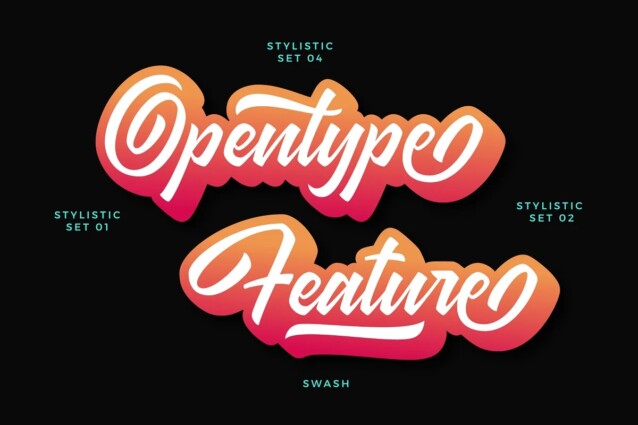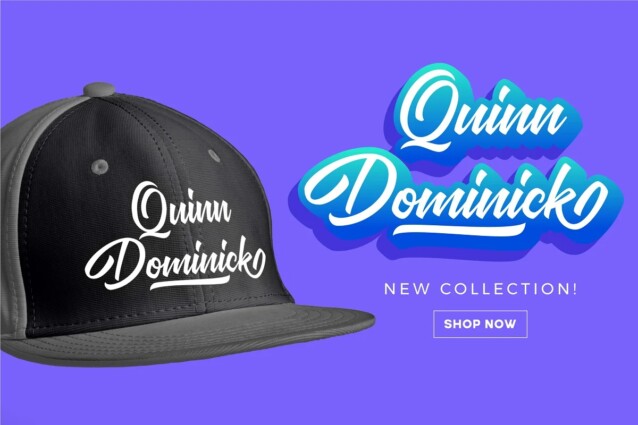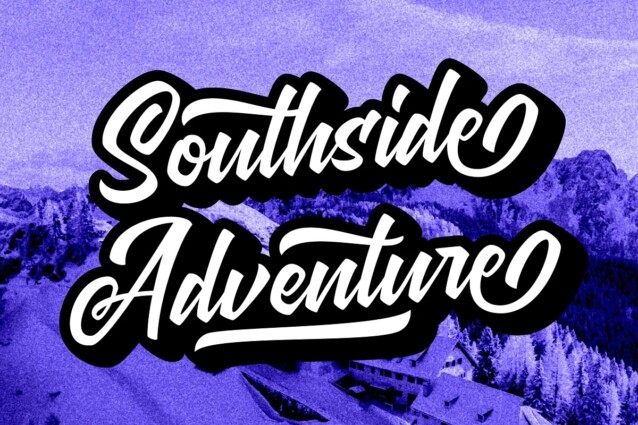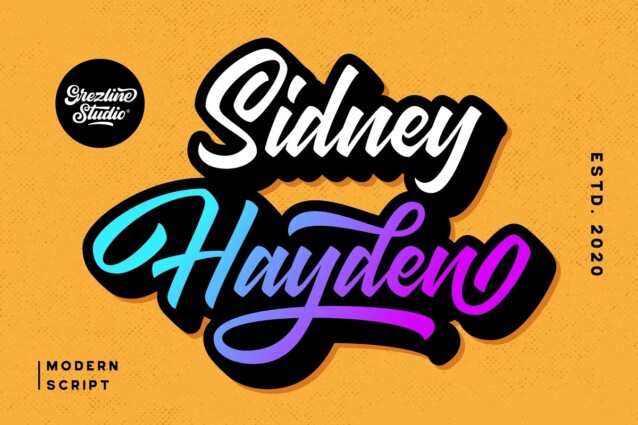
Sidney Hayden Font is bold script Font crafted & designed by Grezline Studio. Inspiration from the baseball font with a touch of vintage script font was created. Sidney Hayden is perfect use for a logotype, typography design, product packaging, quotes, t-shirt design, label poster, headings, letterhead, cutting sticker, hot stamping, signage,and anything that need modern taste. This font is very easy to use, you can even mix and pair it with other fonts to provide a fresh and authentic looks to your design projects.